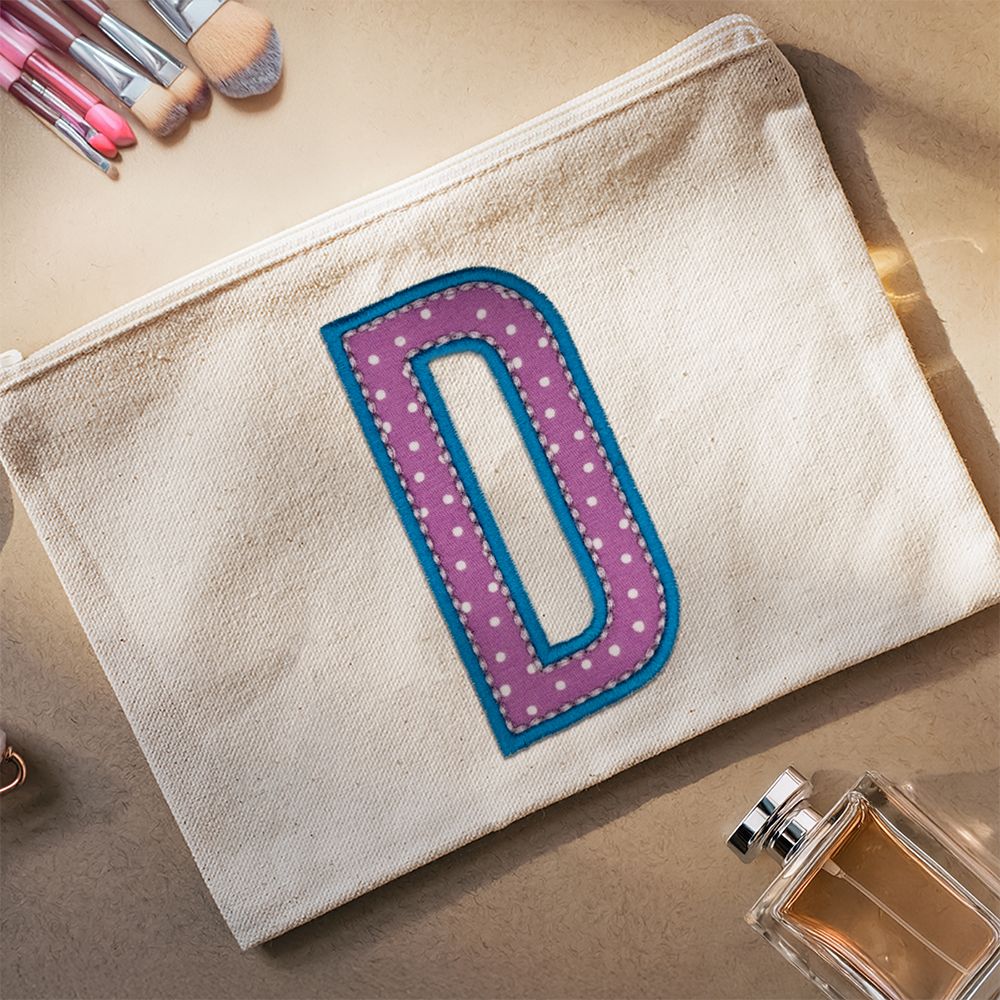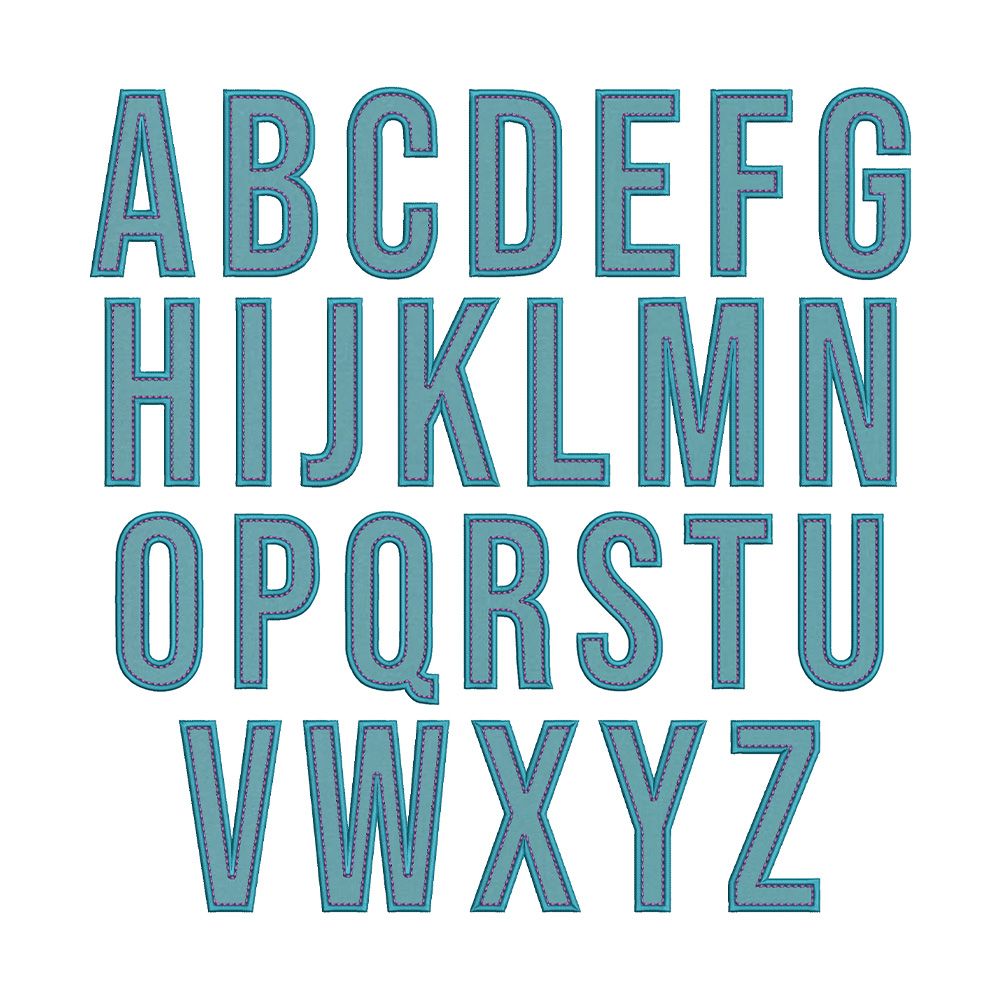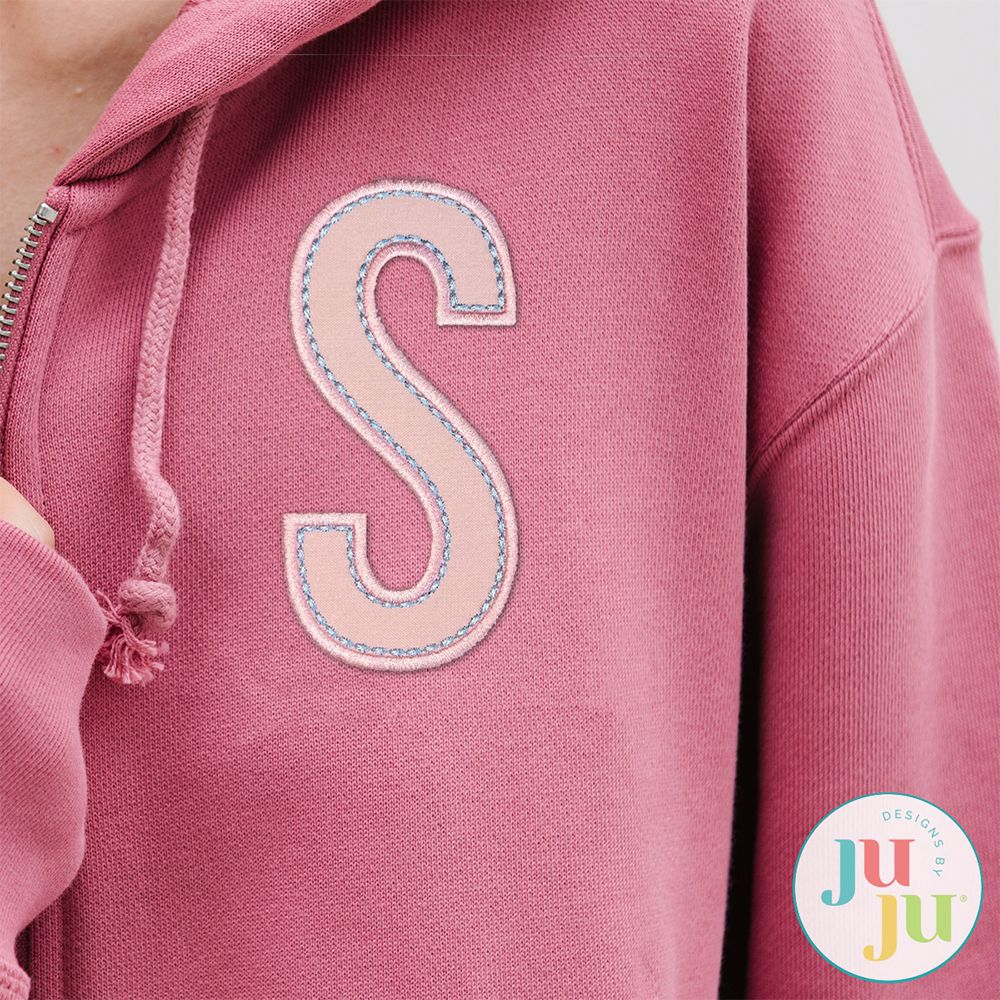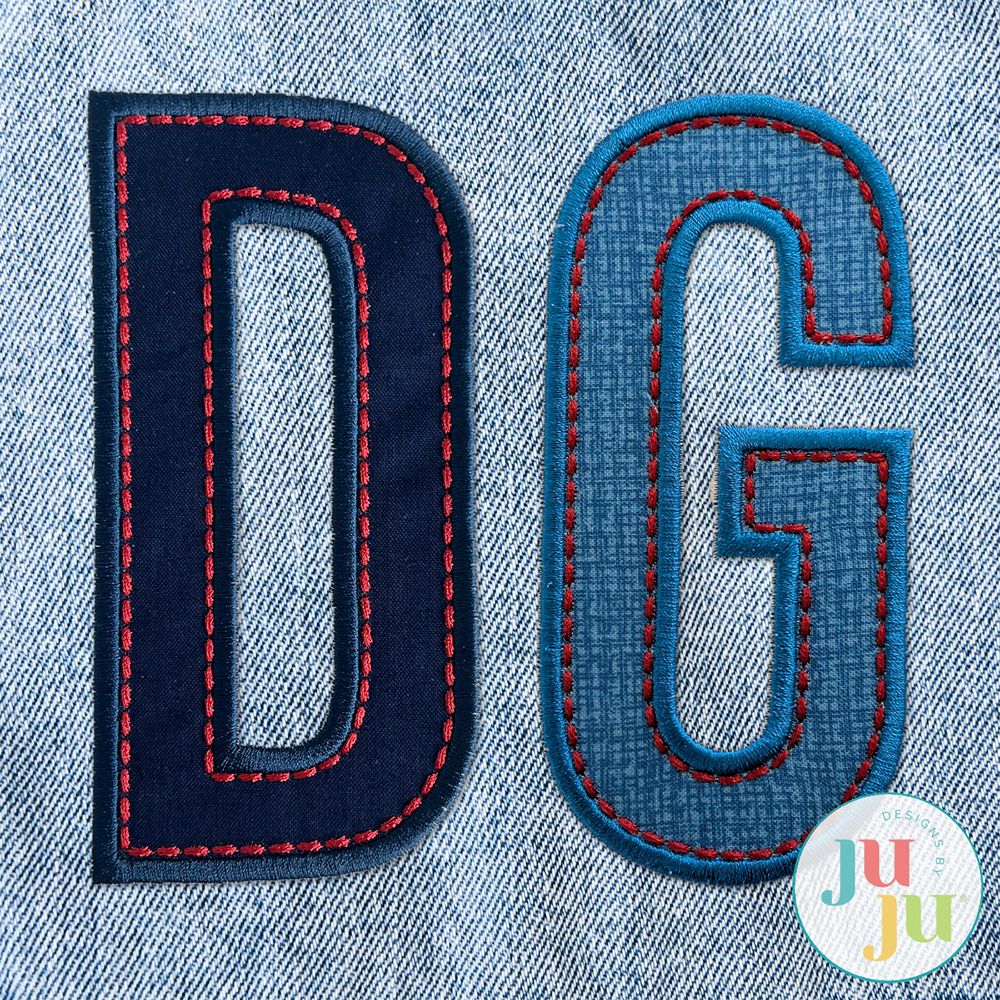
Classic Artisan 2 Satin Stitch Applique Embroidery Font
Stitch something with timeless appeal with our Classic Artisan Applique Alphabet 2. Includes capital letters in 7 sizes (3-inch, 3.5-inch, 4-inch, 4.5-inch, 5-inch, 5.5-inch, and 6-inch).  Each letter features a satin stitch finish with a heavy bean (seed) stitch accent.